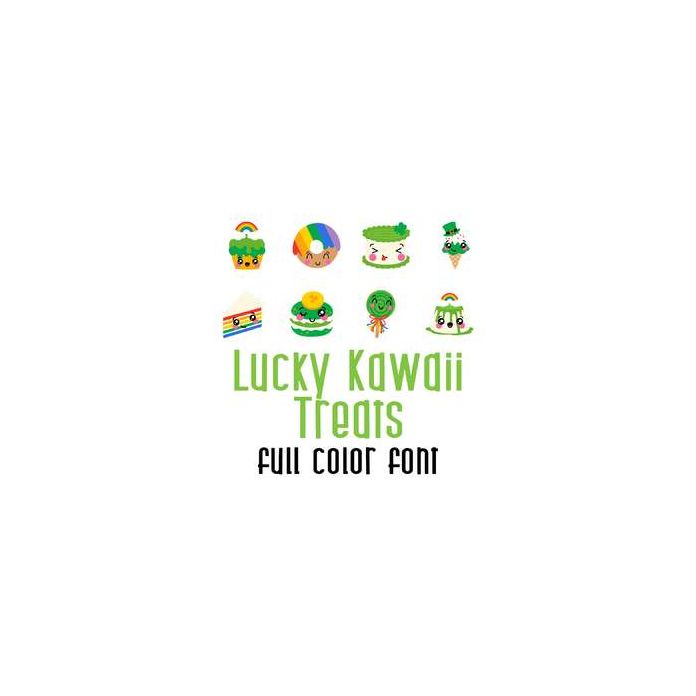
This adorable full color doodlebat font features adorable Kawaii style St. Patrick's day treats. Perfect for cards, crafts, gifts, decor, scrap book pages, planner stickers and more!